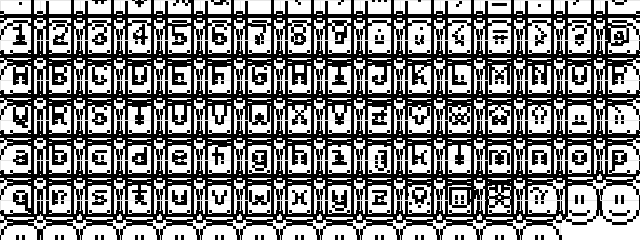
Emote Letters Regular
Design Context for Emote Letters Typeface
Emote Letters is a composed and adaptable typeface that performs quietly and consistently across a wide range of design contexts.